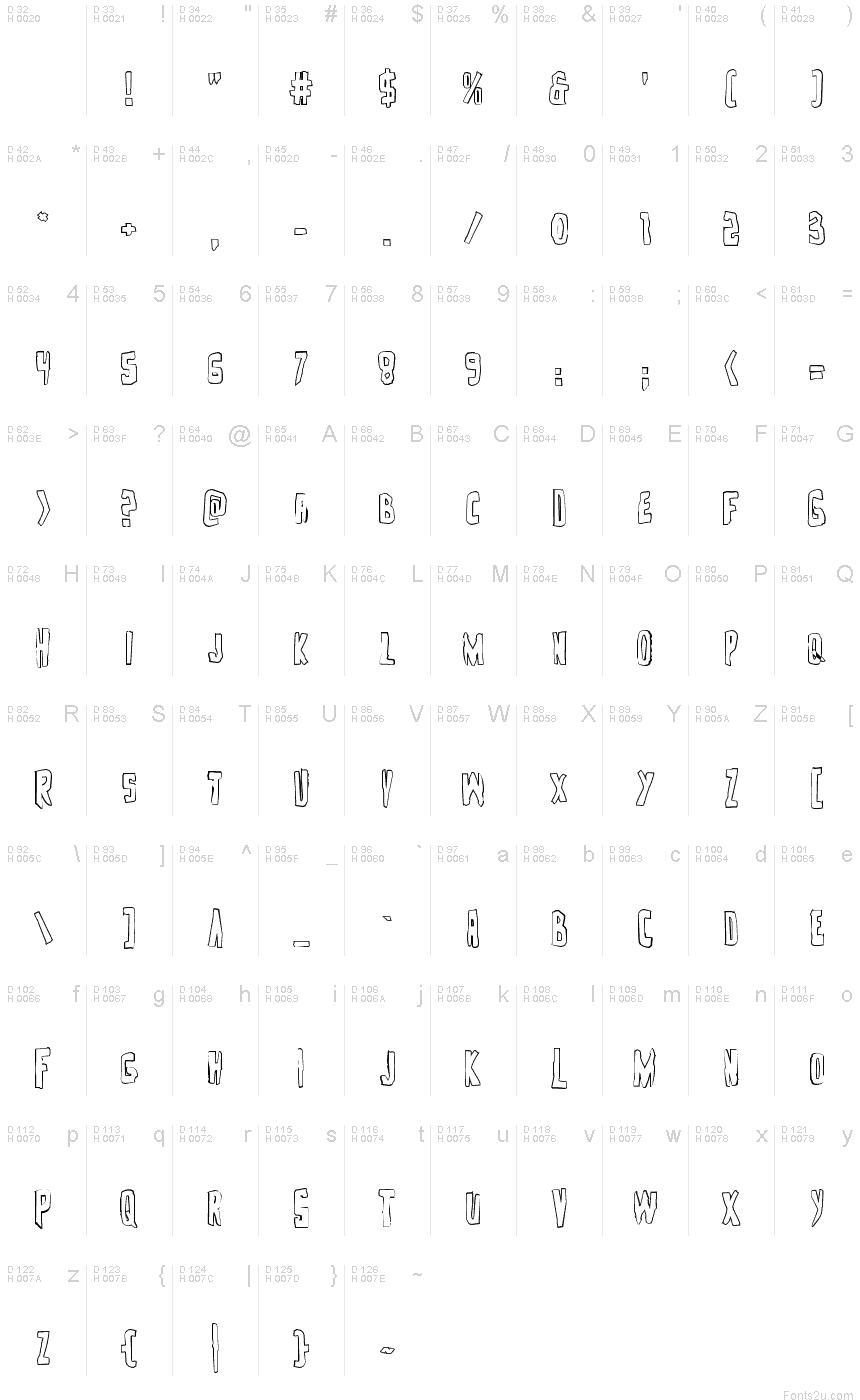
Zakenstein Outline by Daniel Zadorozny of Iconian Fonts is a free outlined display font with tall, uneven capitals. Narrow strokes bend and buckle, giving the lettering a hand-cut silhouette. Sharp notches and swollen curves add a comic-horror edge.
Halloween posters are its strongest setting, where the warped forms can suggest homemade monster-movie lettering without elaborate effects. The same lively outline suits haunted-house signage, novelty packaging, and children's spooky event graphics, especially when the letters become part of a drawn cast of creatures and props.
Zakenstein Outline